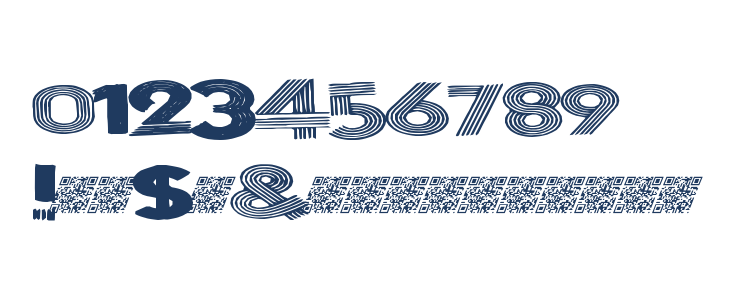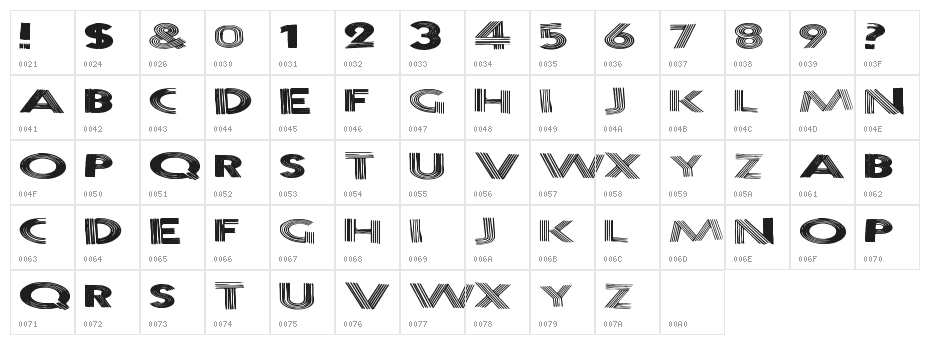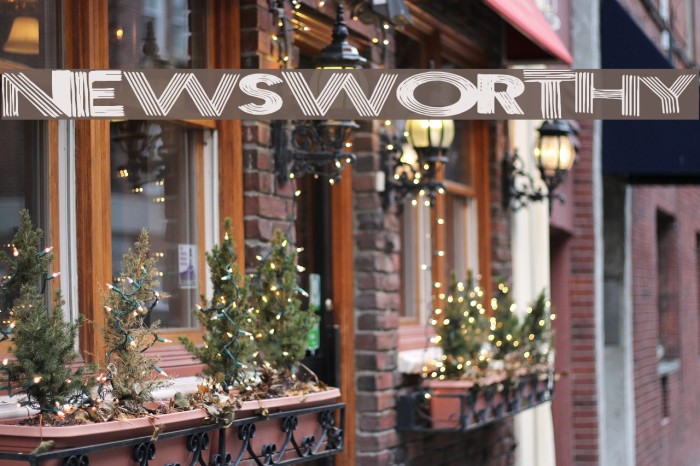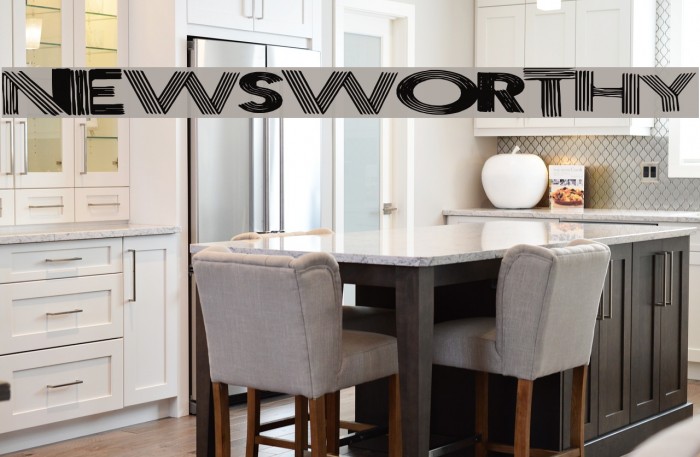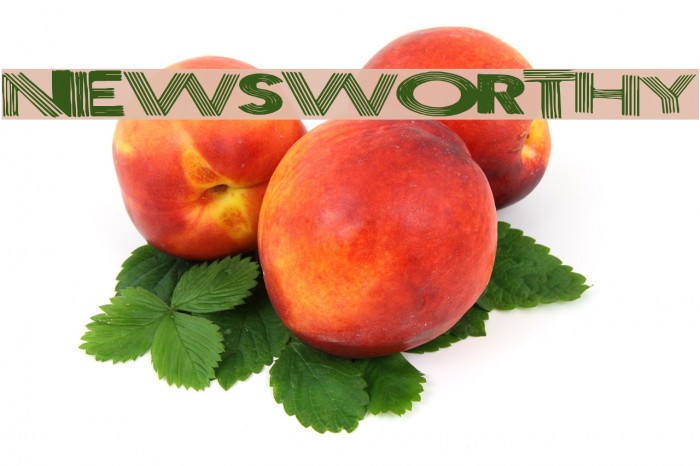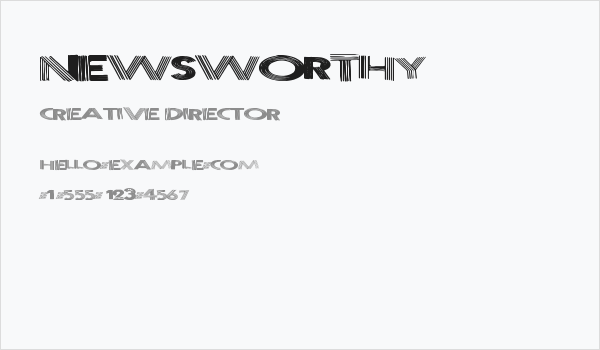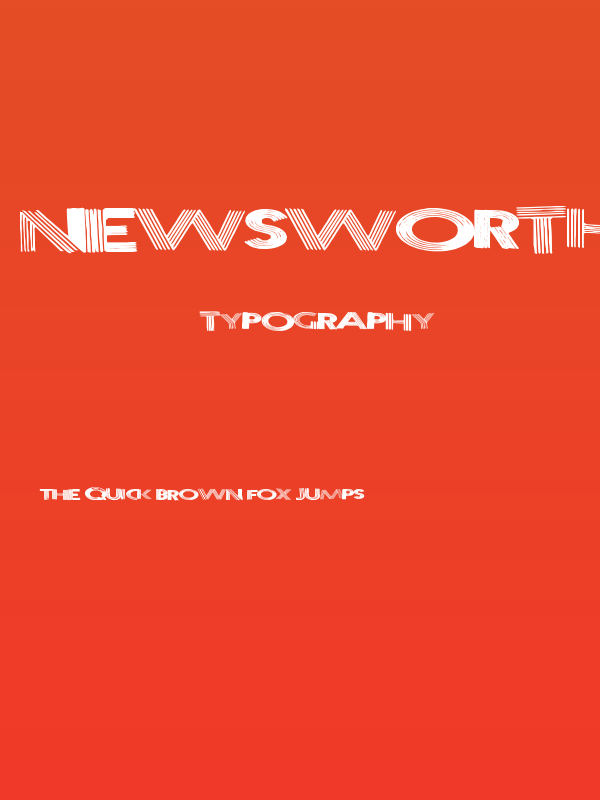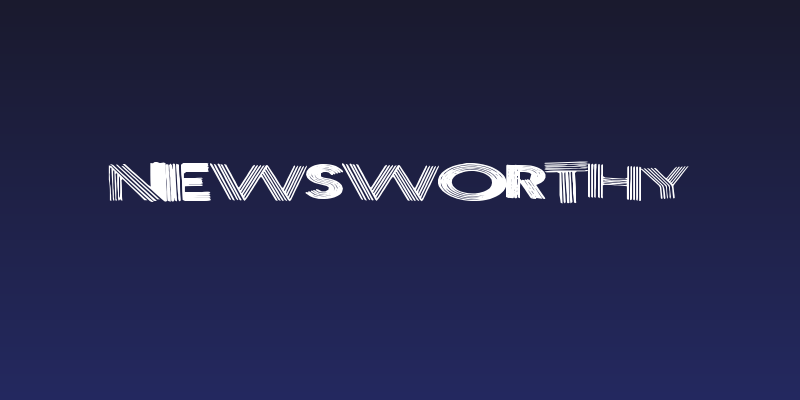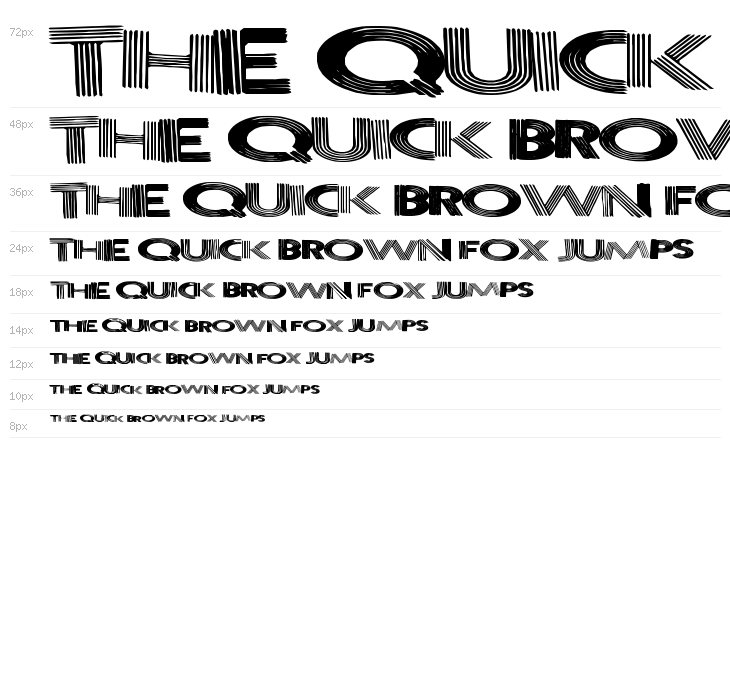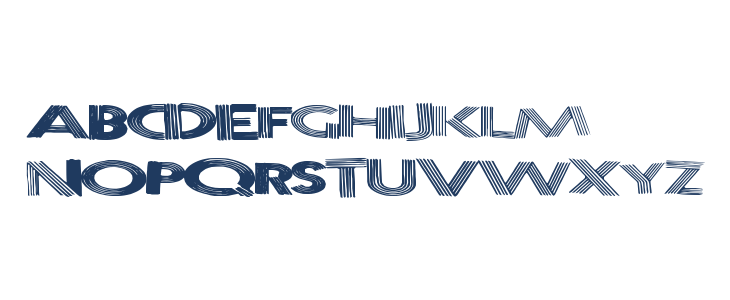
NewsWorthy Font
NewsWorthy Description
This font features a bold and dynamic design with a distinct striped pattern running through each character. The uppercase letters are robust and eye-catching, making them ideal for attention-grabbing headlines. The numbers and special characters maintain the same striped aesthetic, ensuring consistency across all elements. The font's unique style is both modern and artistic, with a playful yet sophisticated vibe. Its high contrast and bold weight make it stand out, while the spacing between characters is relatively tight, enhancing its compact and impactful appearance.
| Proposed Projects | Ideal for posters, magazine covers, branding projects, and any design requiring a bold, artistic touch. |